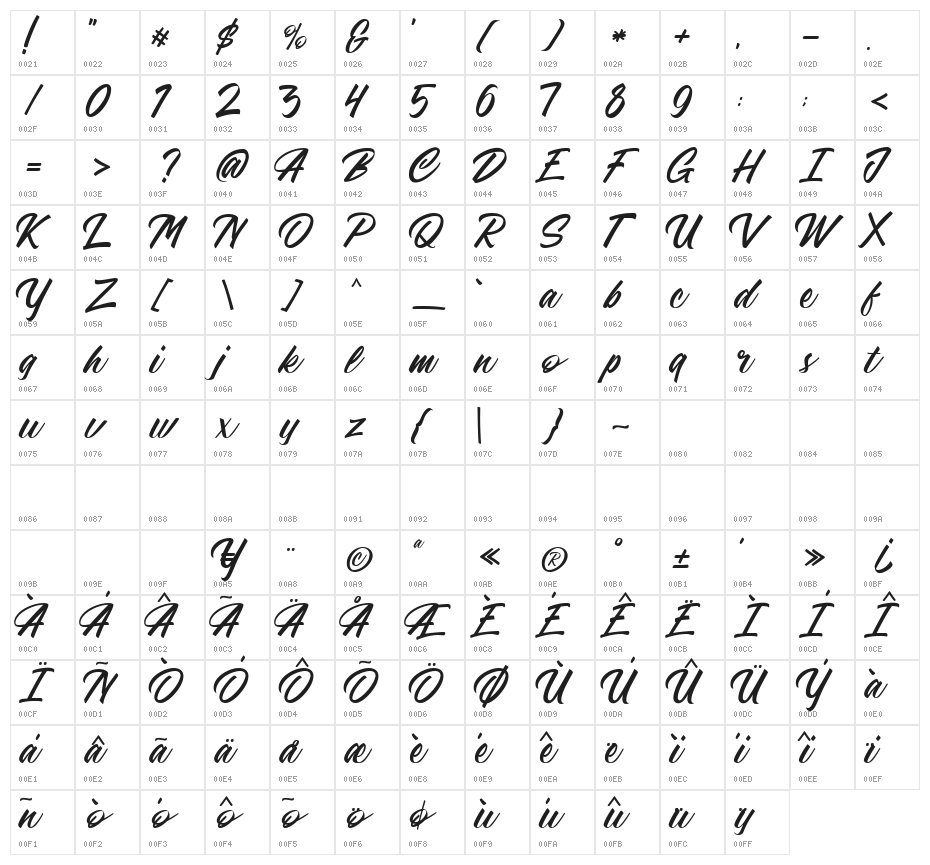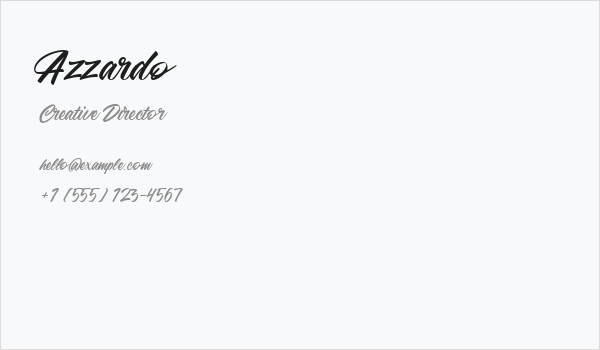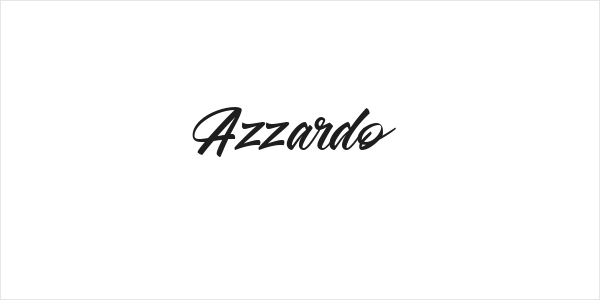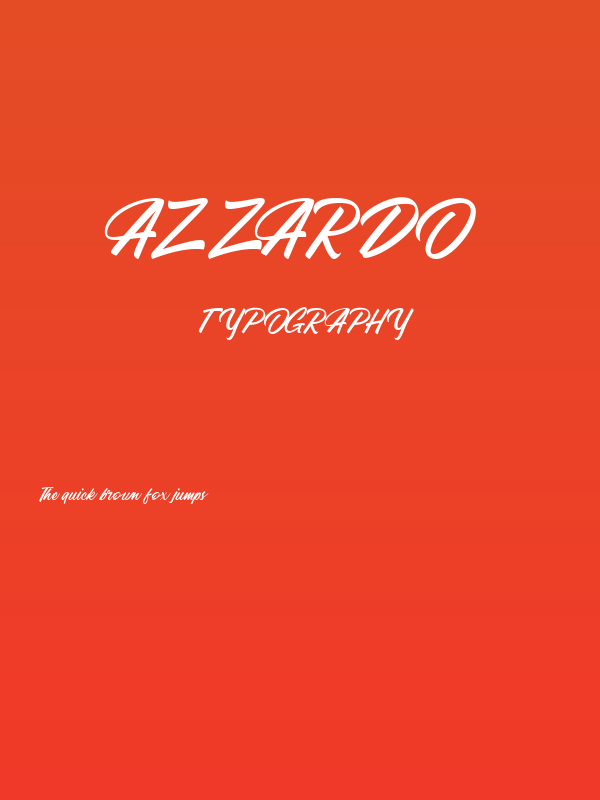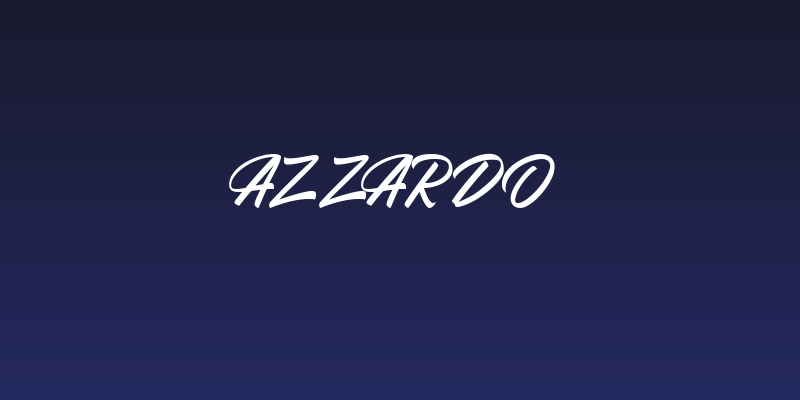
Azzardo Font
Azzardo Description
This font features a dynamic and flowing script style, characterized by its elegant and cursive letterforms. The uppercase letters exhibit a smooth, connected appearance, while the lowercase letters maintain a consistent slant, enhancing the overall fluidity. The numerals are bold and slightly italicized, matching the script's lively nature. Special characters are integrated seamlessly, maintaining the font's cohesive look. The strokes are moderately thick, providing a balanced contrast that ensures readability without compromising the decorative appeal.
| Proposed Projects | Ideal for wedding invitations, branding, logo design, and elegant packaging. |